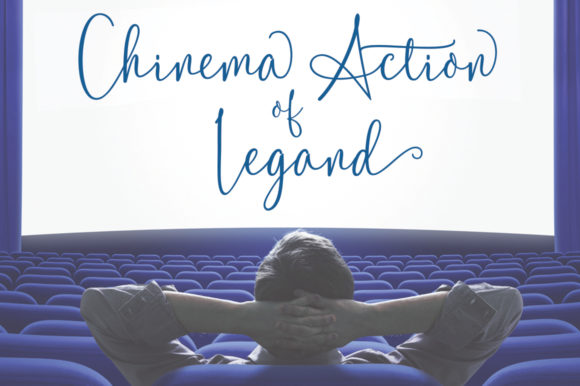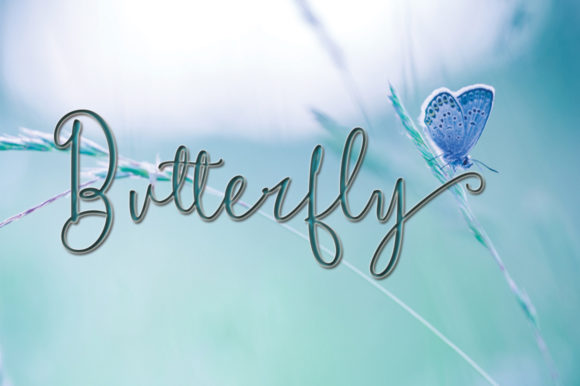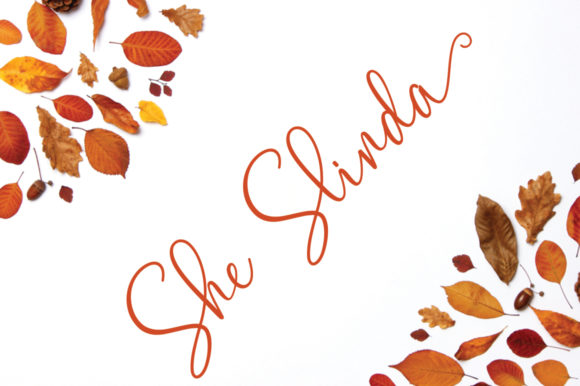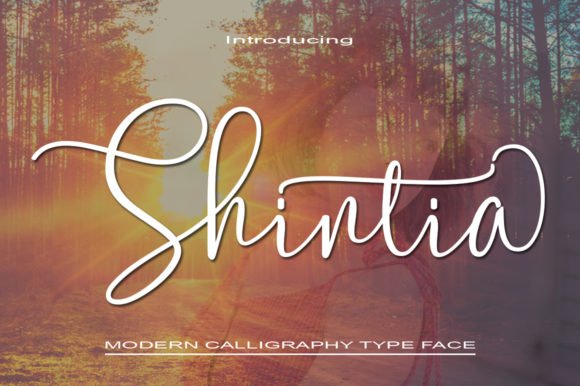
Introduction to Shintia Font
Shintia is a thin and elegant handwritten font.
Use this gorgeous and unique font to bring any DIY project to life This font is PUA encoded which means you can access all of the glyphs and swashes with ease.
Shintia Font offers exceptional quality and versatility, making it a valuable addition to your design toolkit. Whether you’re creating for personal projects or commercial use, Shintia Font delivers professional results.